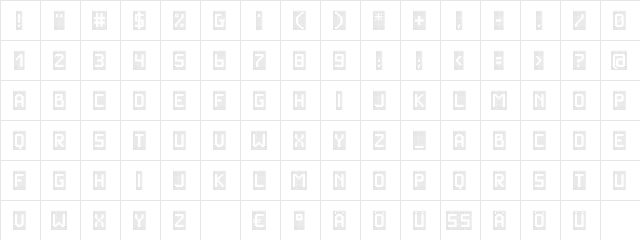
VegasTWENTYONE Regular
Design Context for VegasTWENTYONE Typeface
VegasTWENTYONE is a composed and adaptable typeface that performs quietly and consistently across a wide range of design contexts.